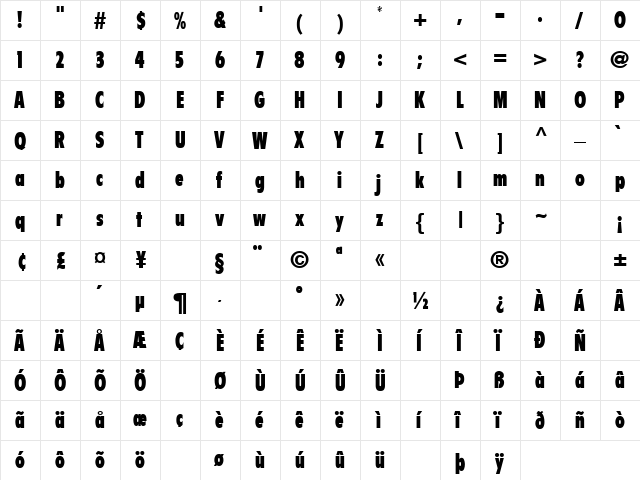
Crunge 2 Regular
Design Context for Crunge 2 Typeface
Crunge 2 takes a measured approach to typography — its balanced proportions and neutral character make it a reliable workhorse for both digital and print work.